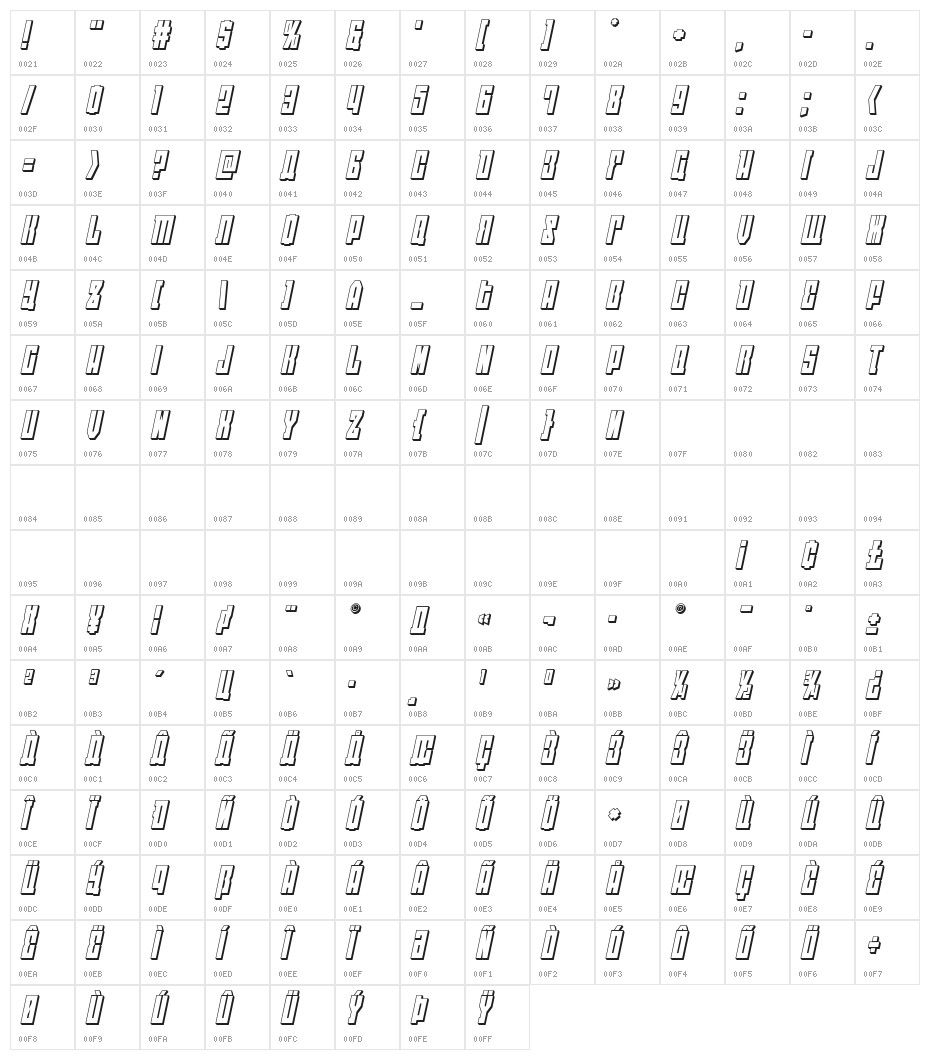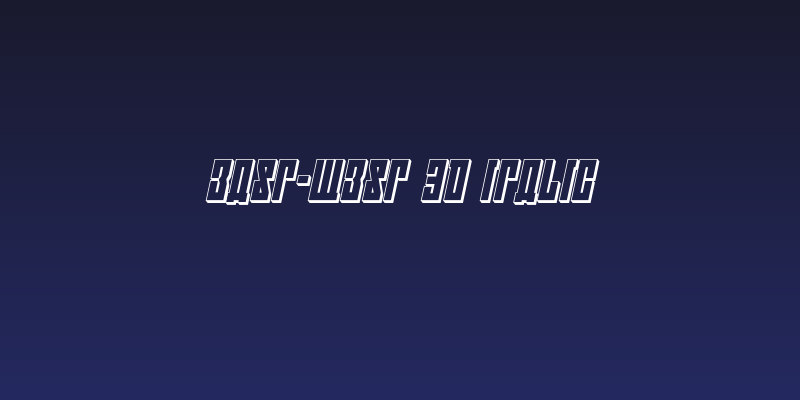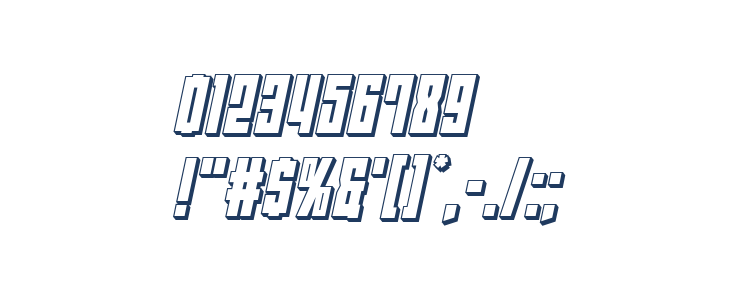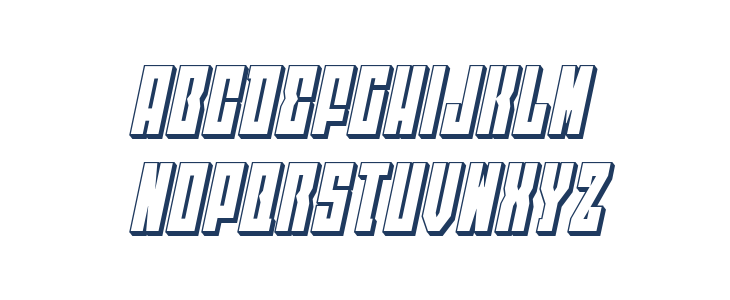
EAST-west 3D Italic Font
EAST-west 3D Italic Description
This bold, three-dimensional font features a striking italicized style that gives it a dynamic and energetic appearance. The letters are outlined with a thick black shadow, enhancing the 3D effect and making each character stand out prominently. The uppercase and lowercase letters maintain a consistent design, with sharp angles and clean lines that convey a sense of movement and modernity. Numbers and special characters are equally bold and follow the same stylistic approach, ensuring uniformity across all elements. The font's unique style makes it ideal for projects that require a strong visual impact.
| Proposed Projects | Ideal for posters, logos, video game graphics, and any project needing a bold, eye-catching design. |